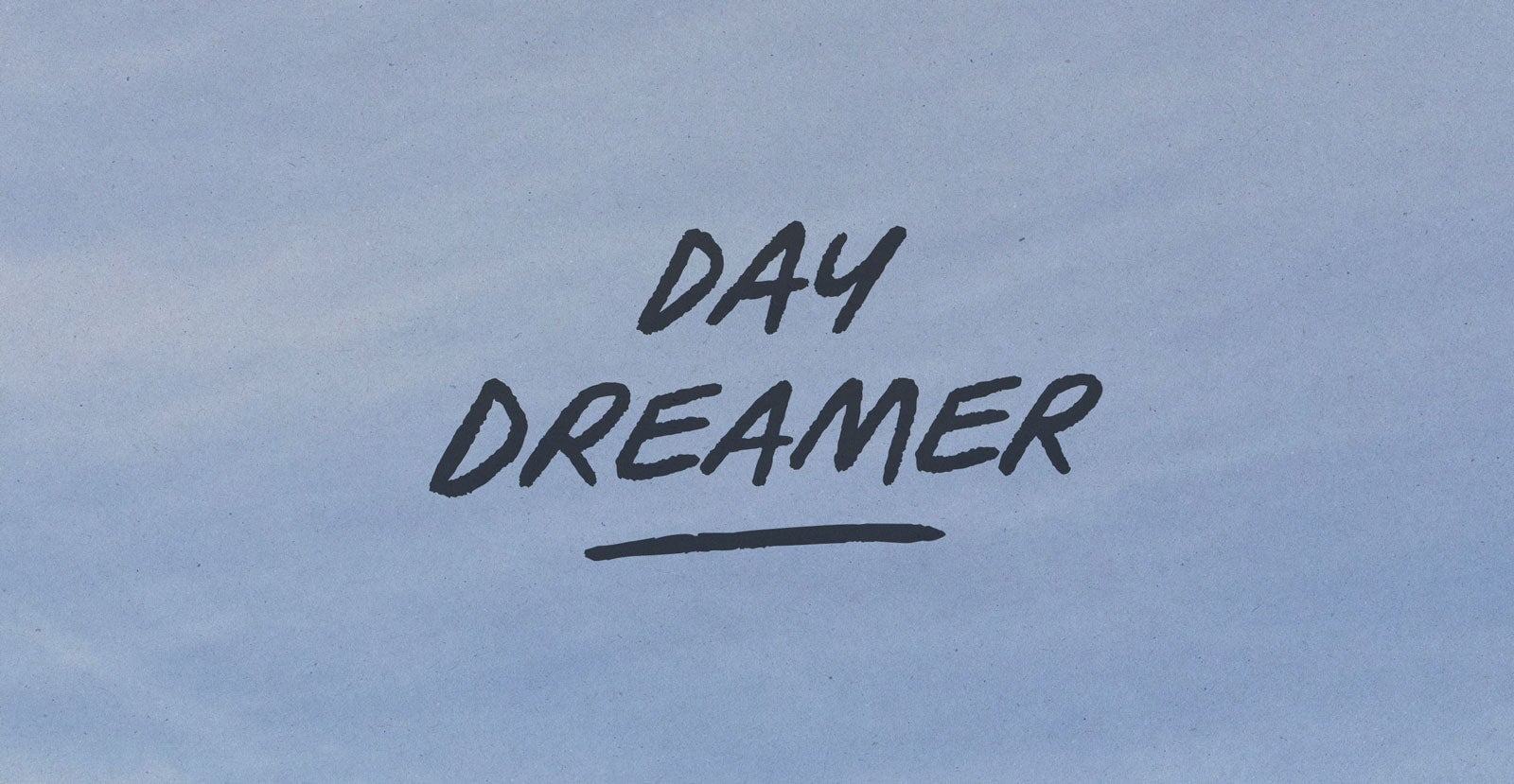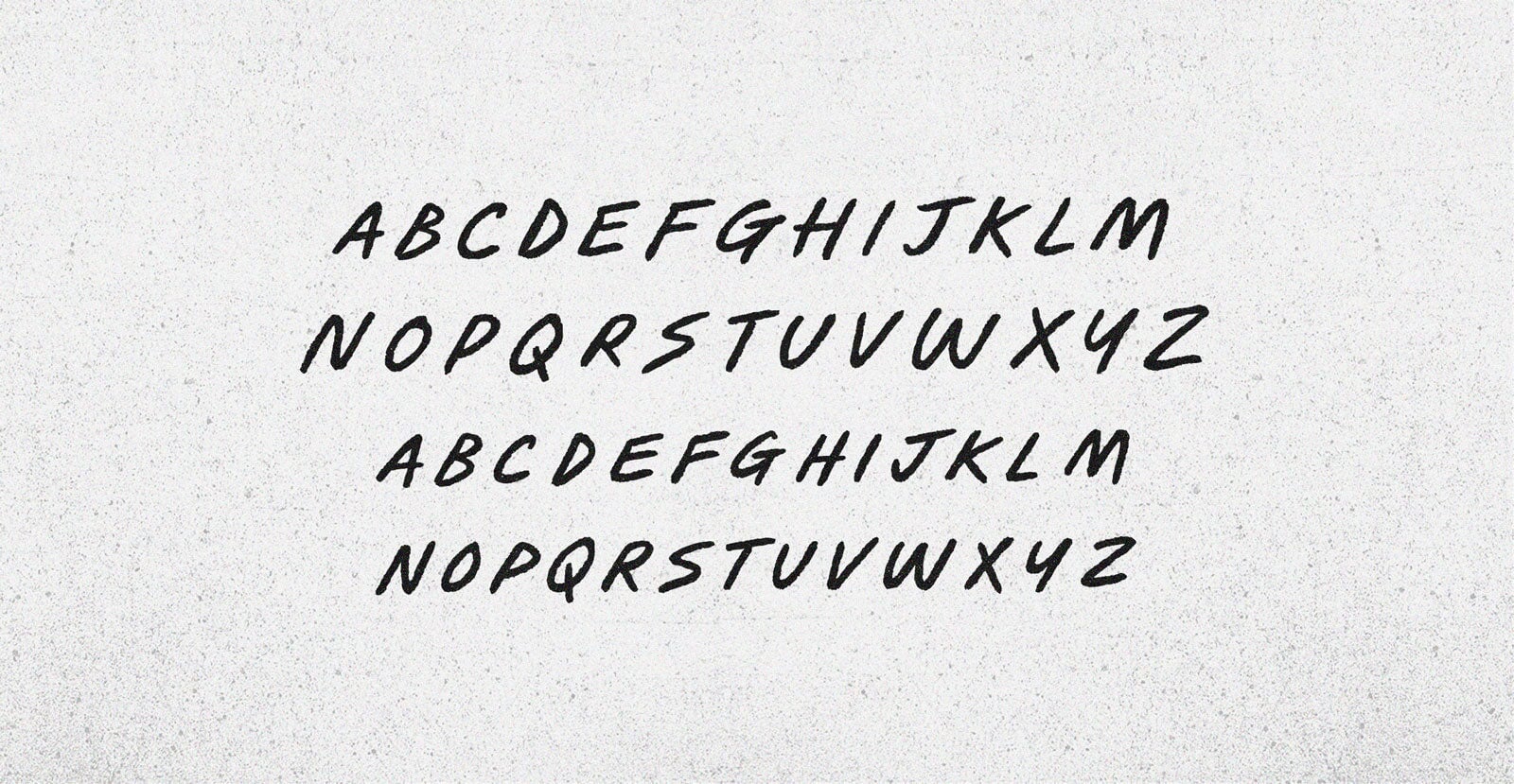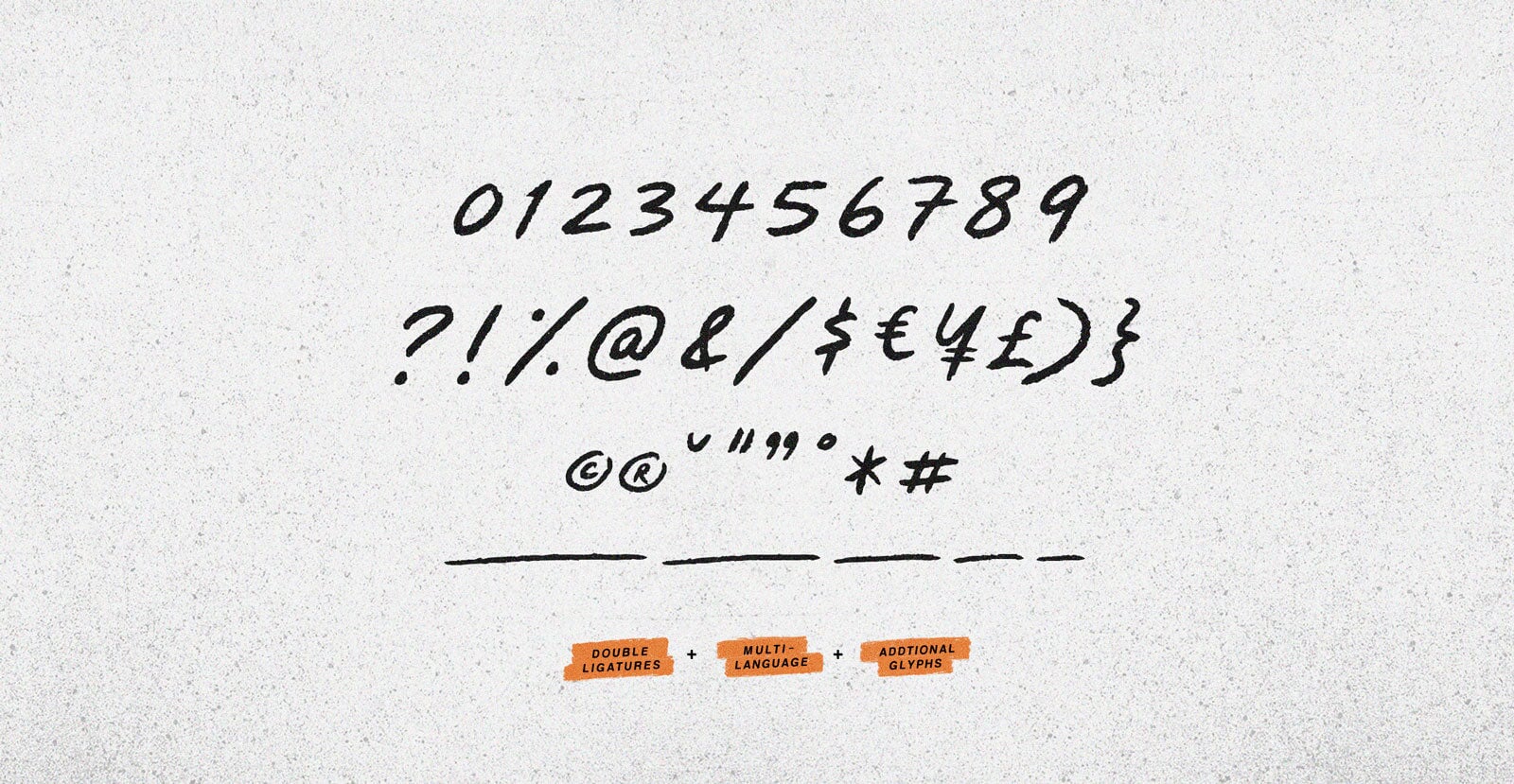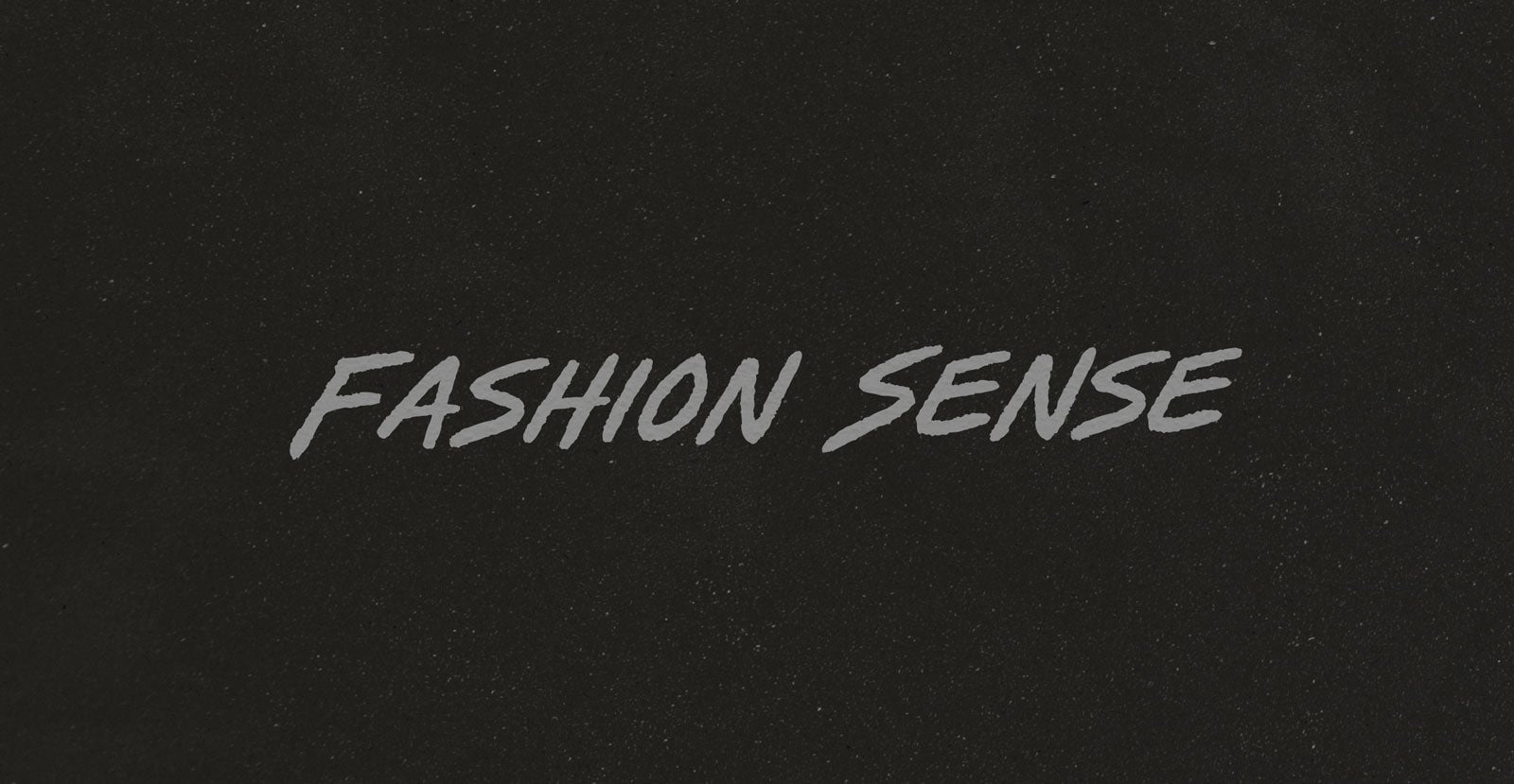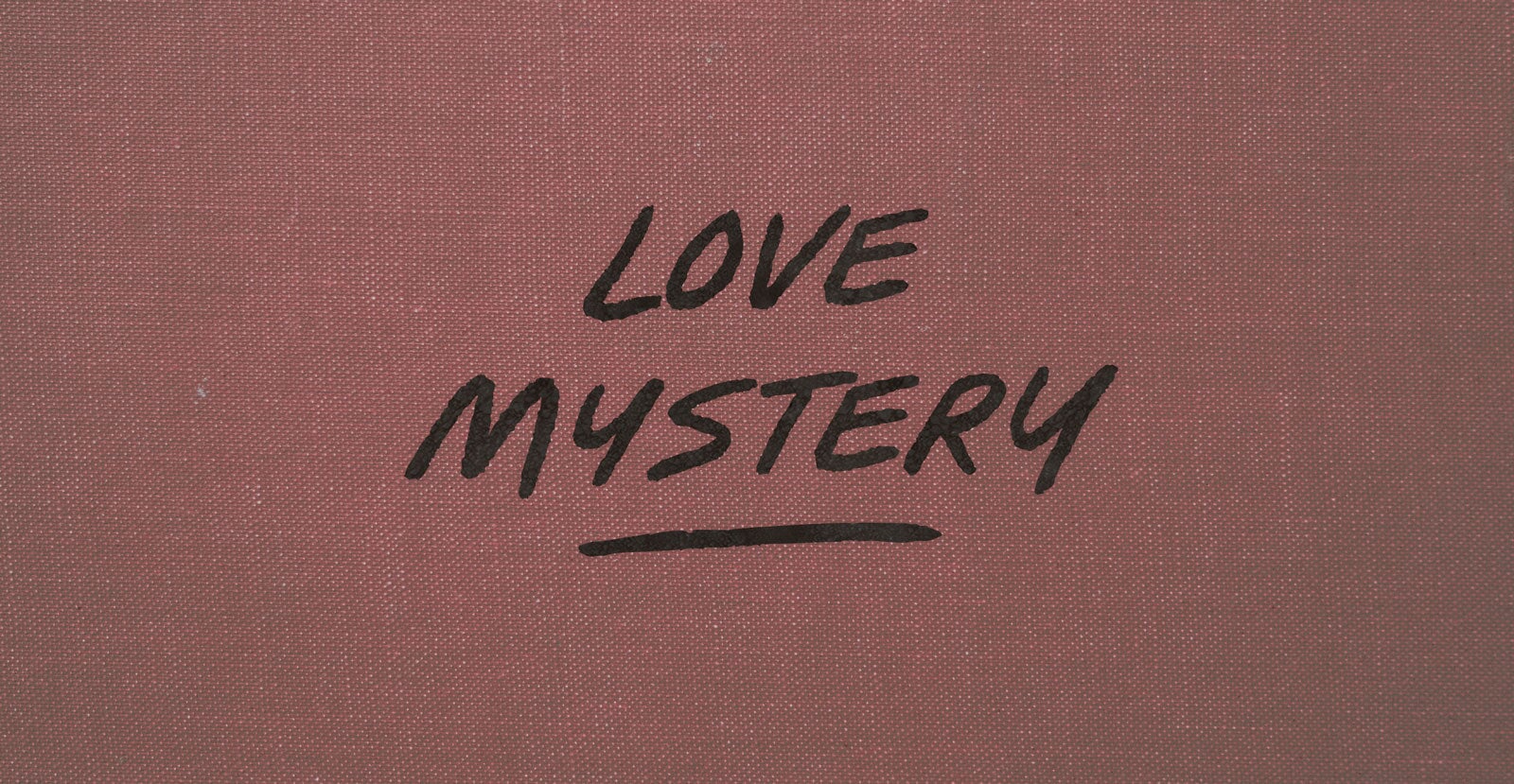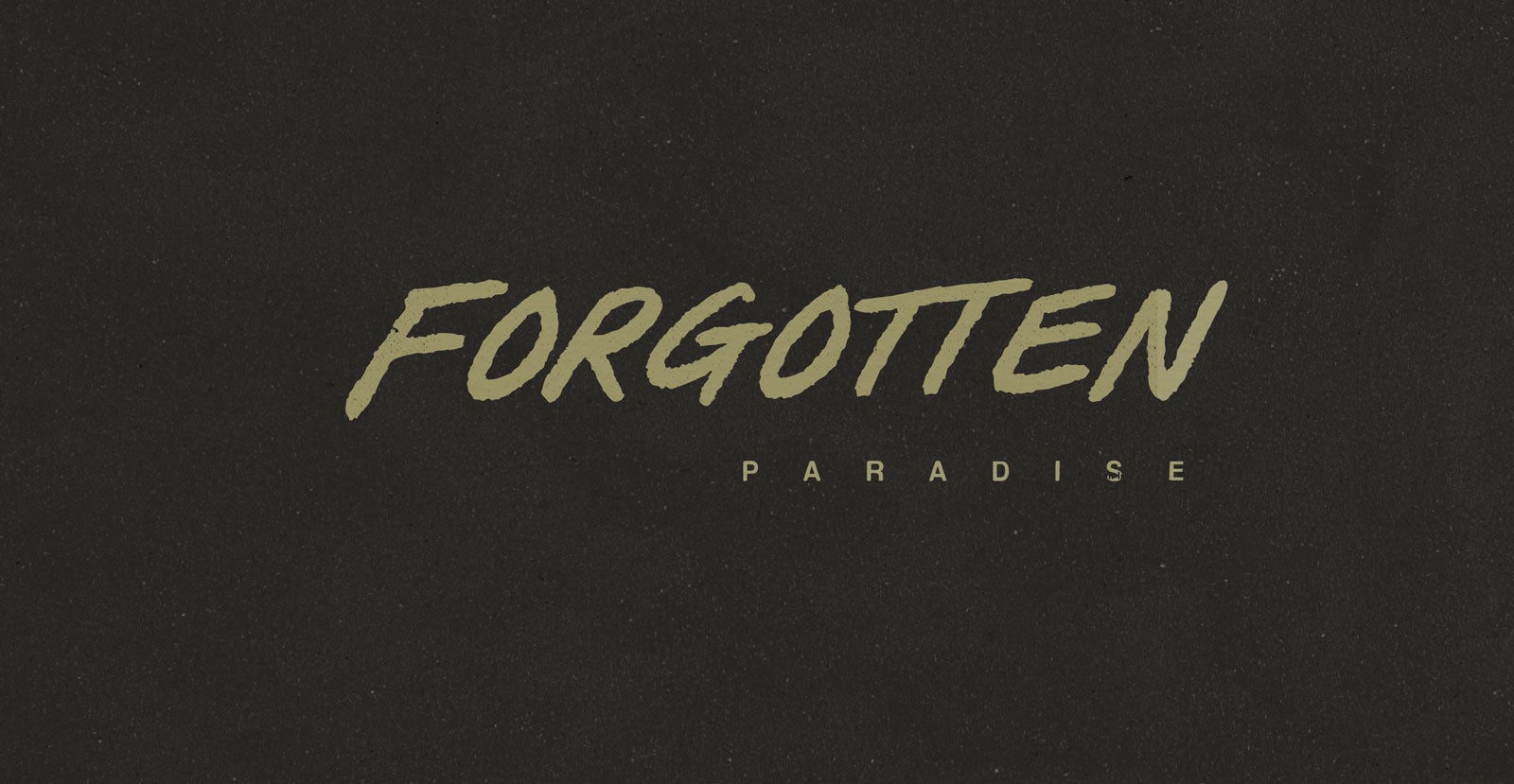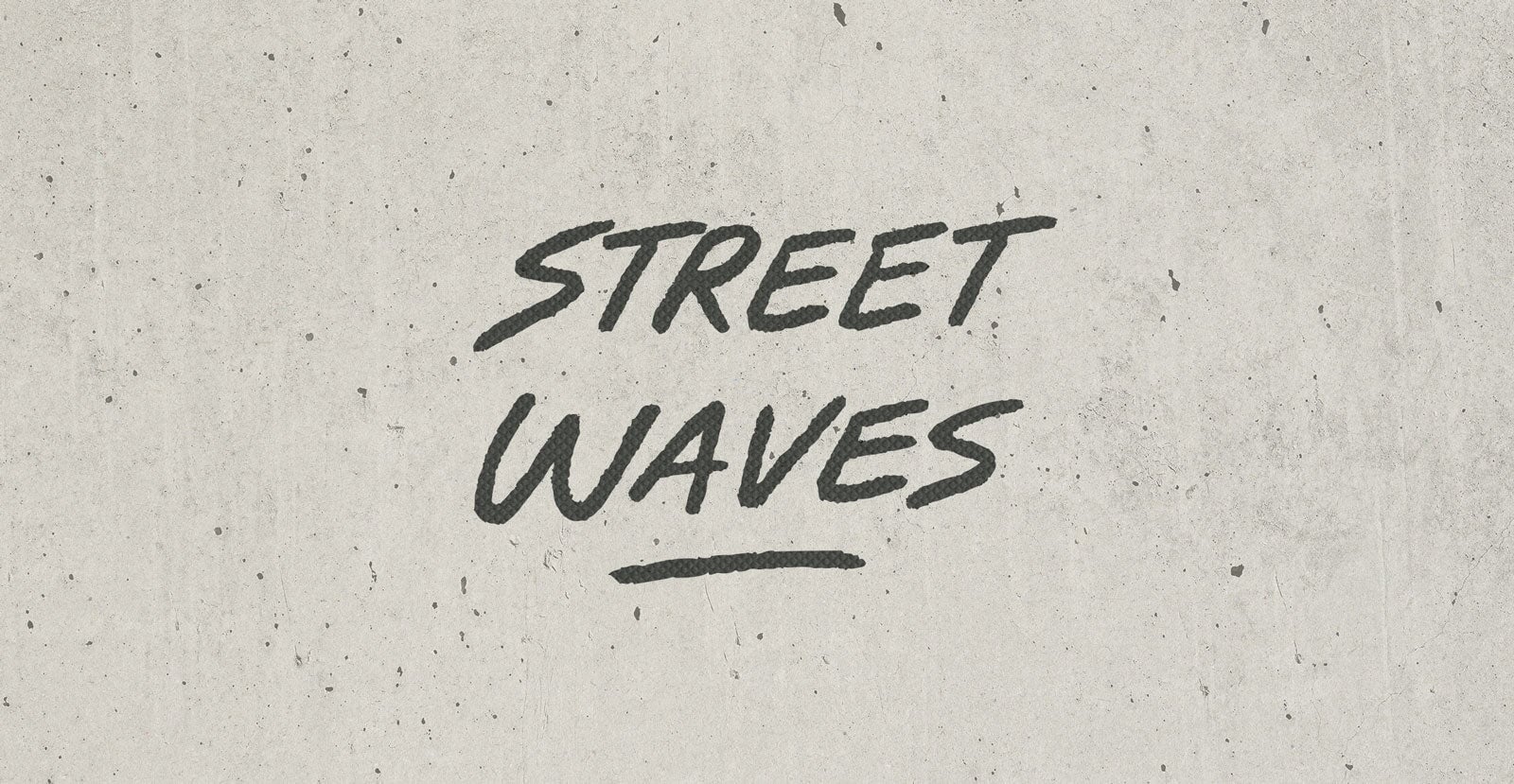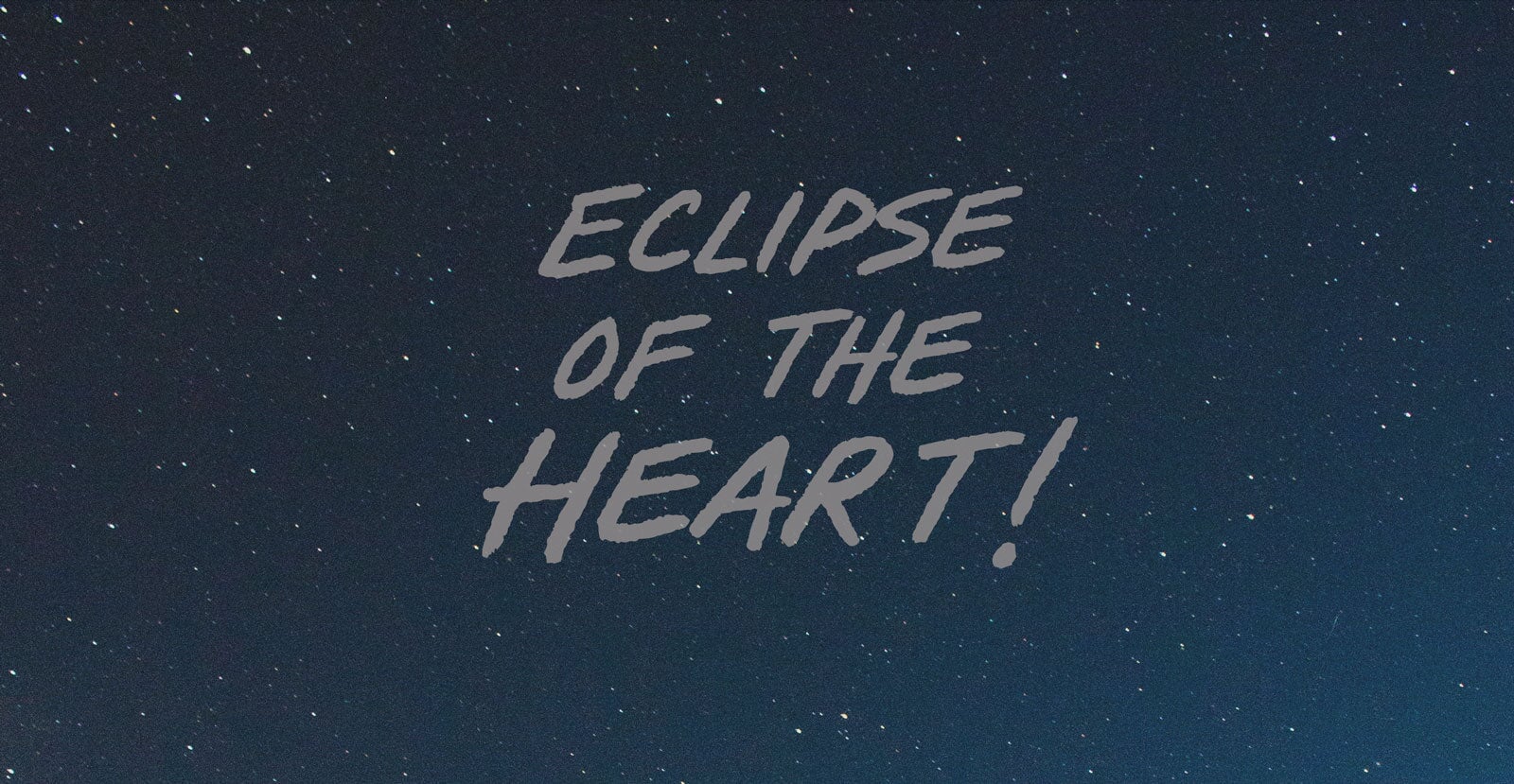
Day Dreamer
Drifting between moments. Light, untethered, and full of quiet wonder. It doesn’t chase the world. It watches it unfold, one soft blur at a time. A pause stretched into possibility.